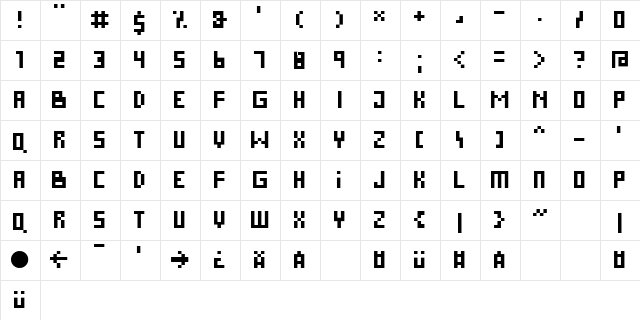
Pixels Regular
Design Context for Pixels Typeface
Pixels celebrates the constraints of early digital type, turning pixel geometry into a distinctive and immediately recognisable style.
Well-suited to indie game interfaces, retro computing aesthetics, and pixel art-adjacent design work.
Pro Tip: Use Pixels at sizes that align with its pixel grid for the sharpest rendering — scaling to non-integer multiples can introduce unwanted blur.